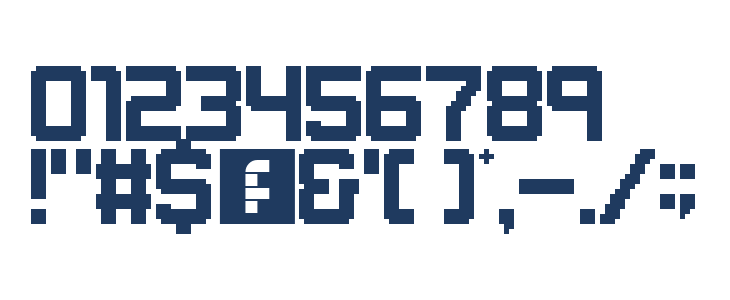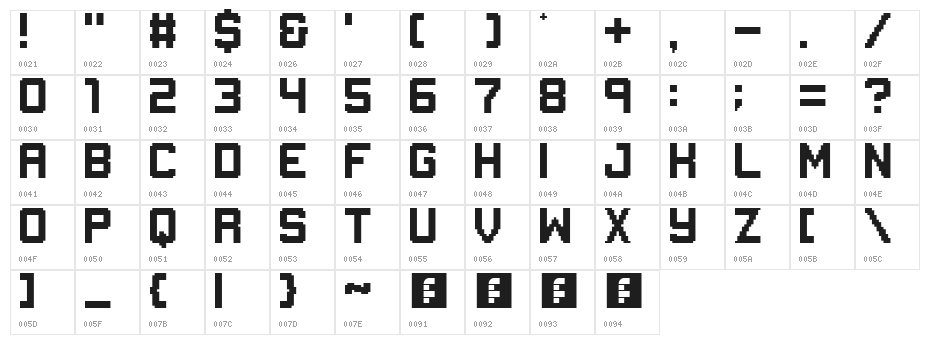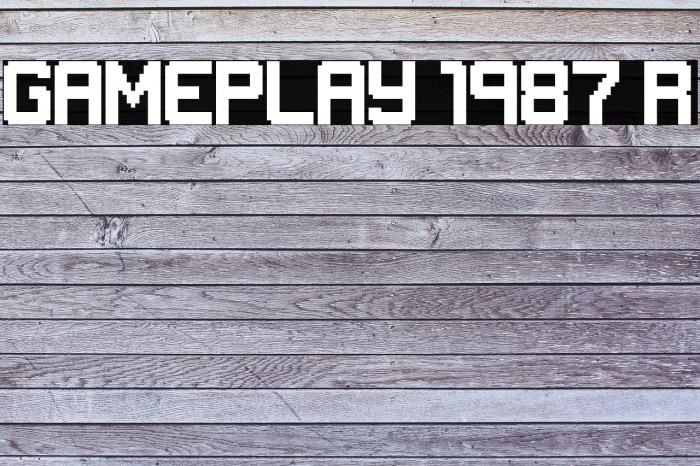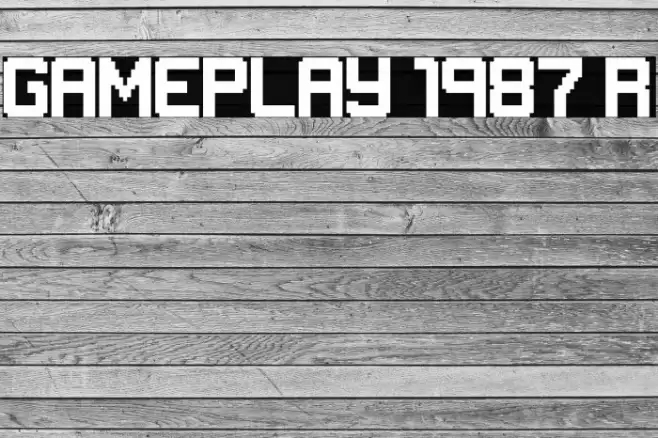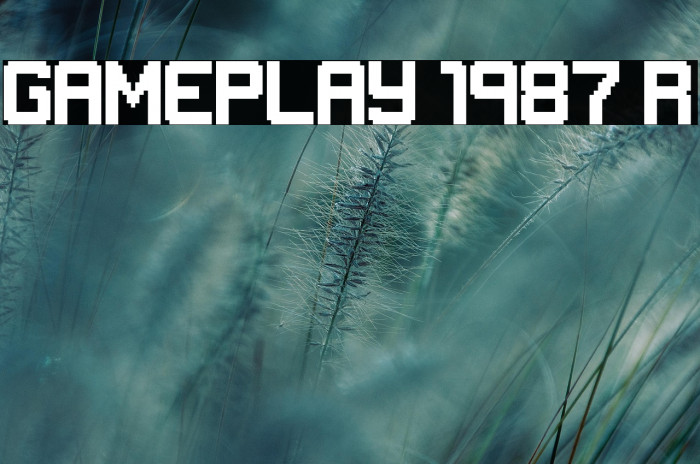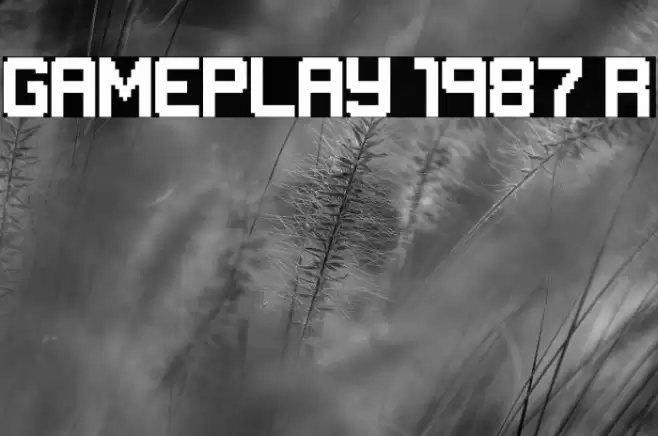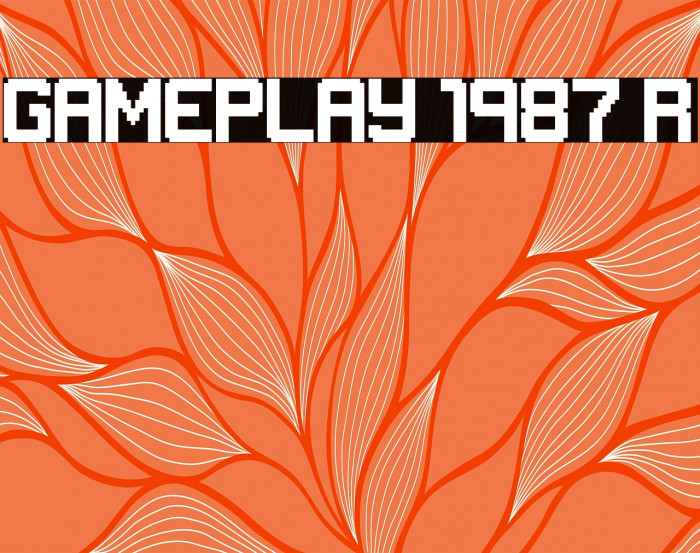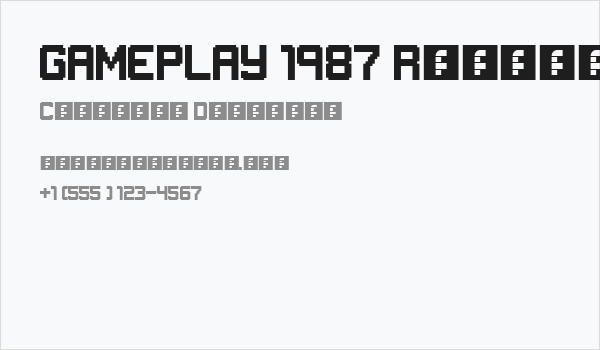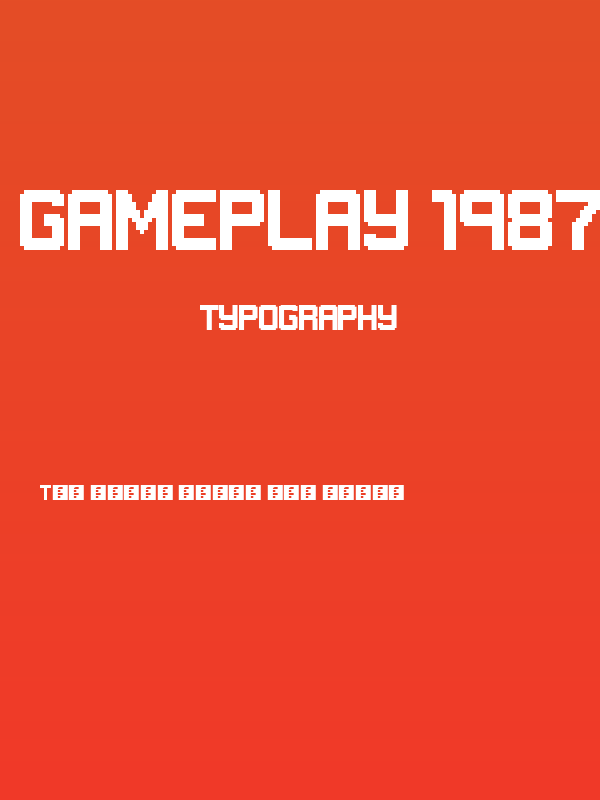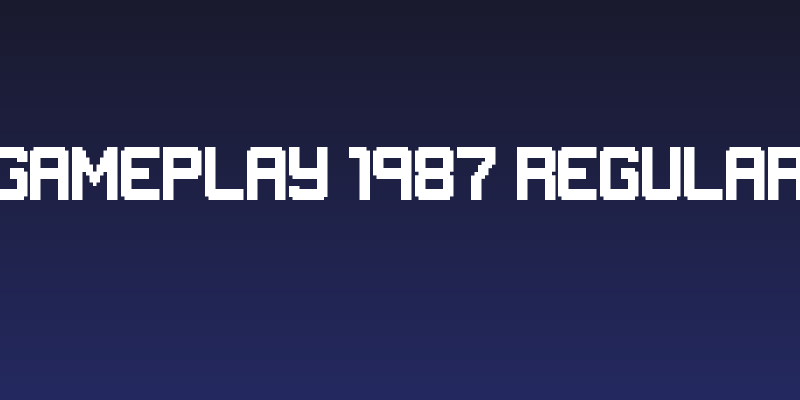
GAMEPLAY 1987 Regular Font
GAMEPLAY 1987 Regular Description
This font embodies a retro, pixelated style reminiscent of classic video games from the 1980s. Its blocky, geometric shapes and uniform stroke widths give it a distinct, nostalgic appearance. The characters are bold and clear, making them highly legible even at smaller sizes. The uppercase and lowercase letters maintain a consistent height, contributing to its monospaced feel. The numerals and special characters follow the same design principles, ensuring a cohesive look across all glyphs. This font is perfect for projects that aim to capture the essence of vintage digital aesthetics.
| Proposed Projects | Ideal for retro-themed designs, video game graphics, posters, and digital art projects. |